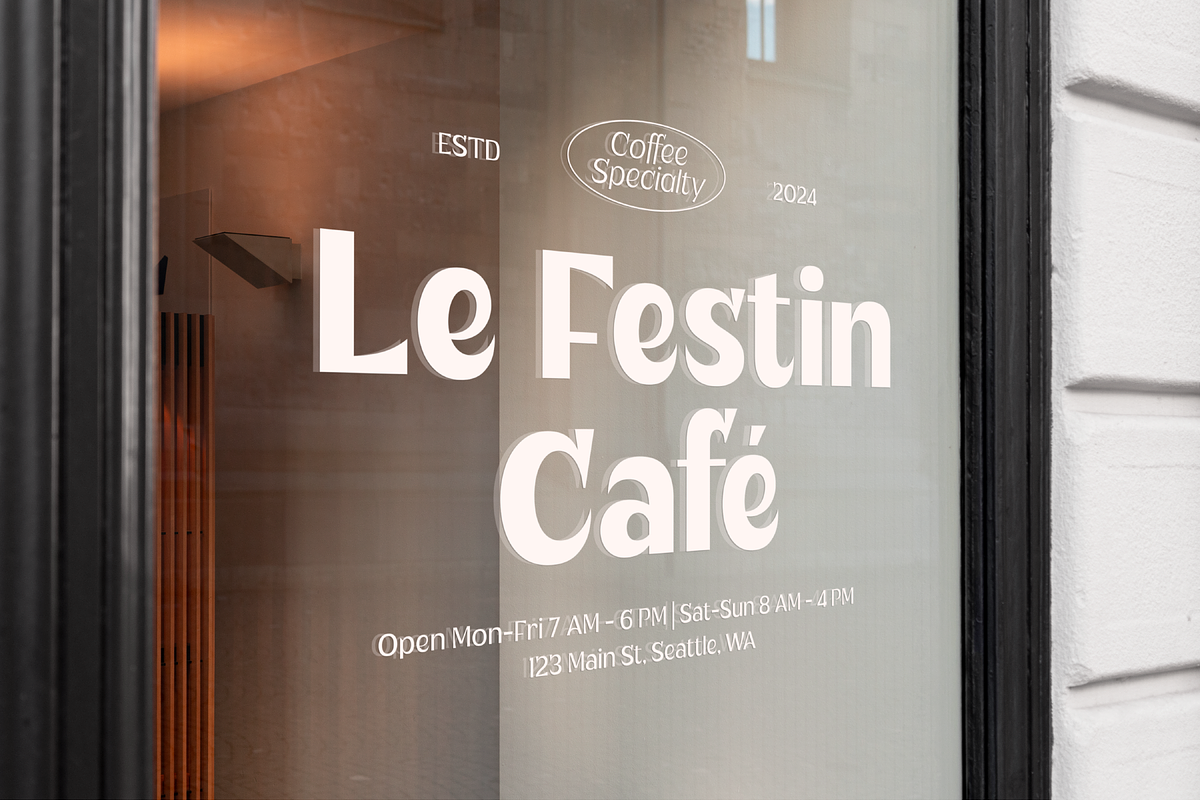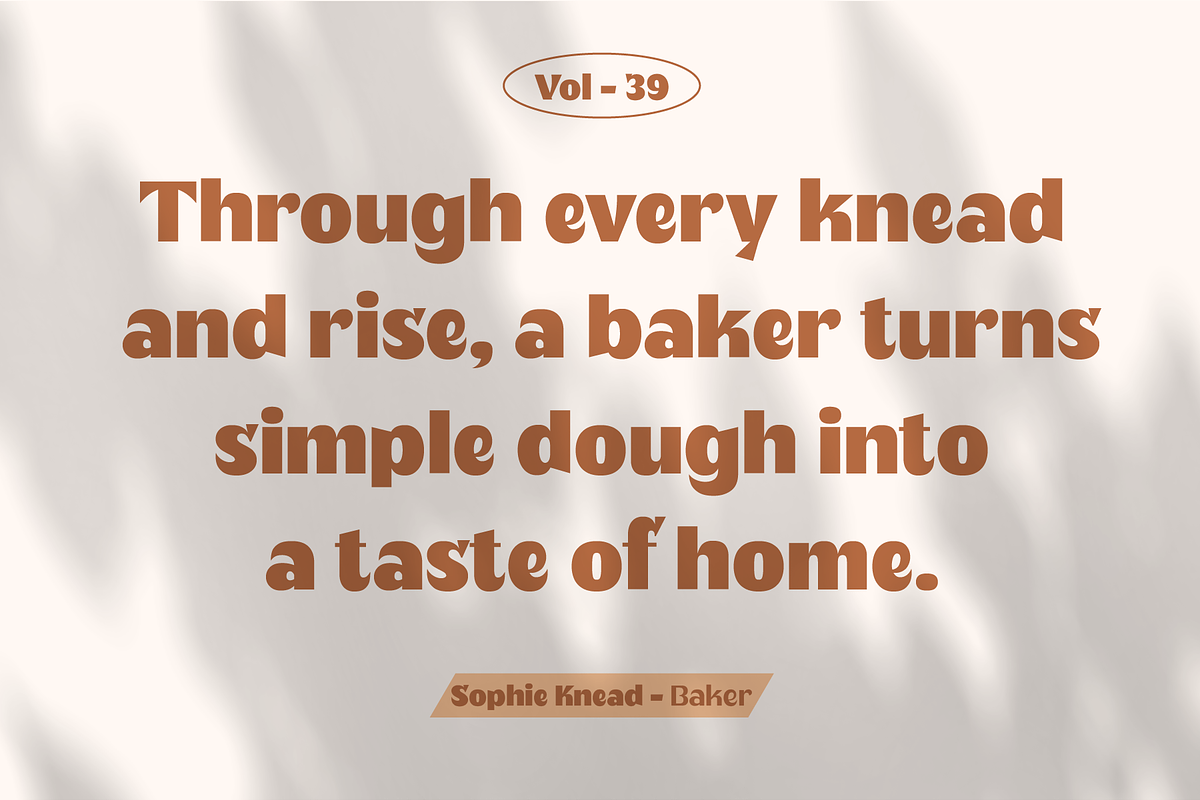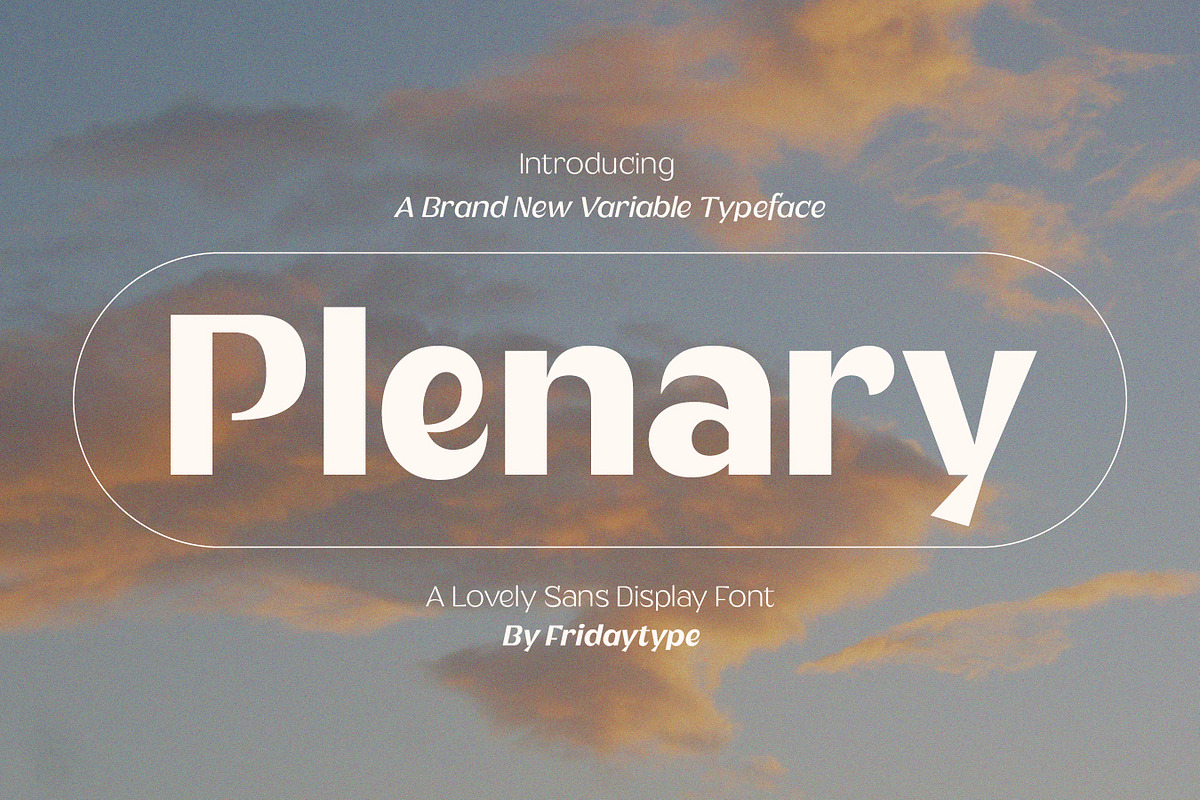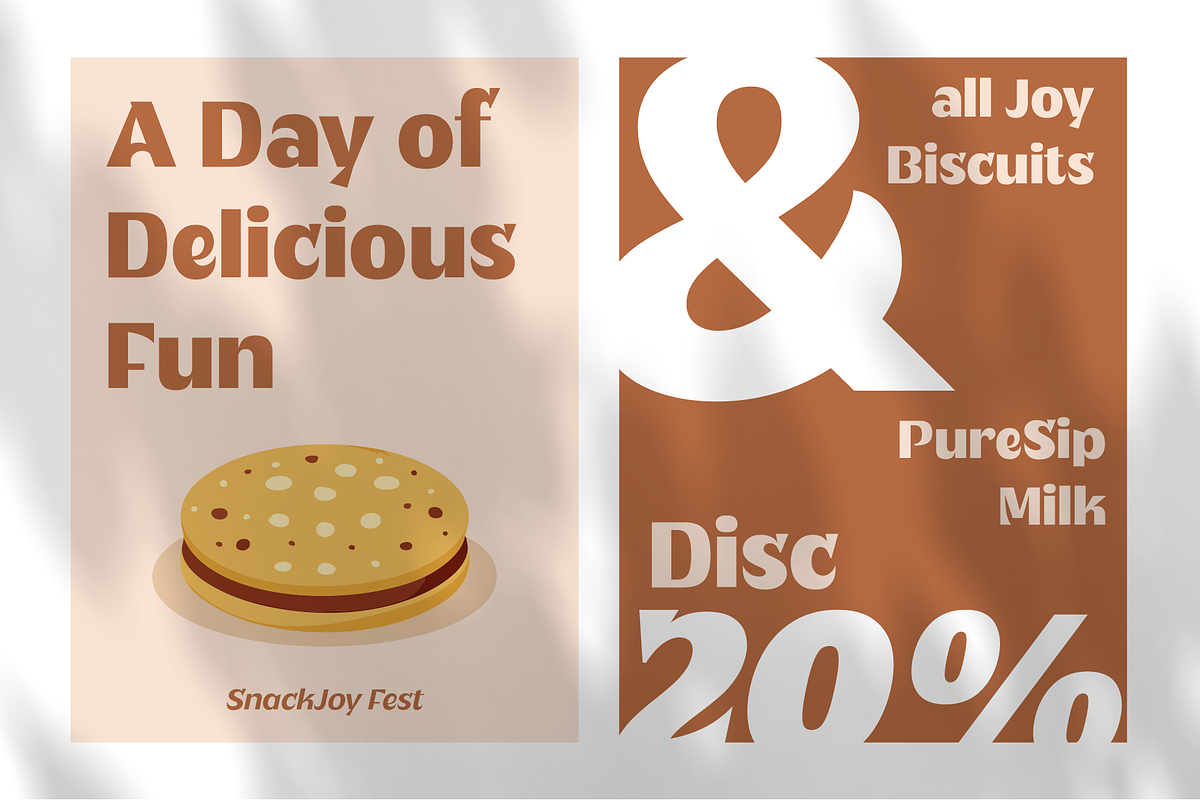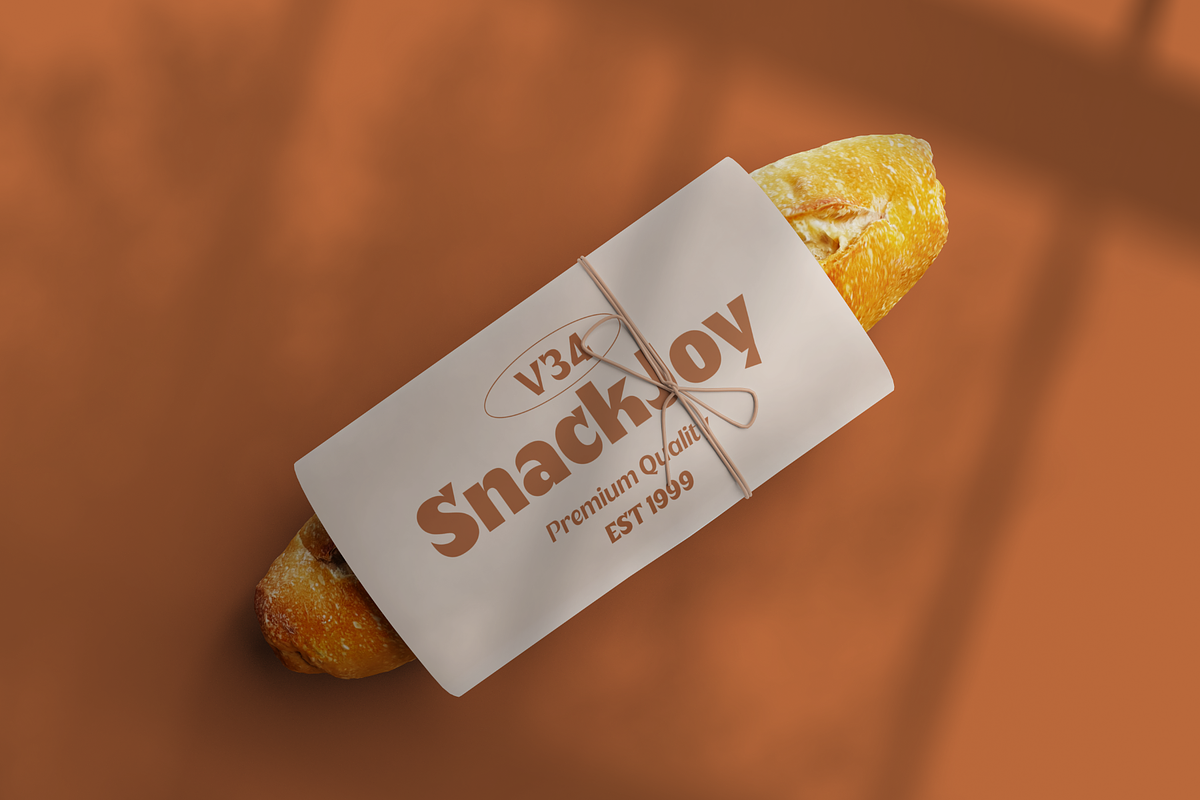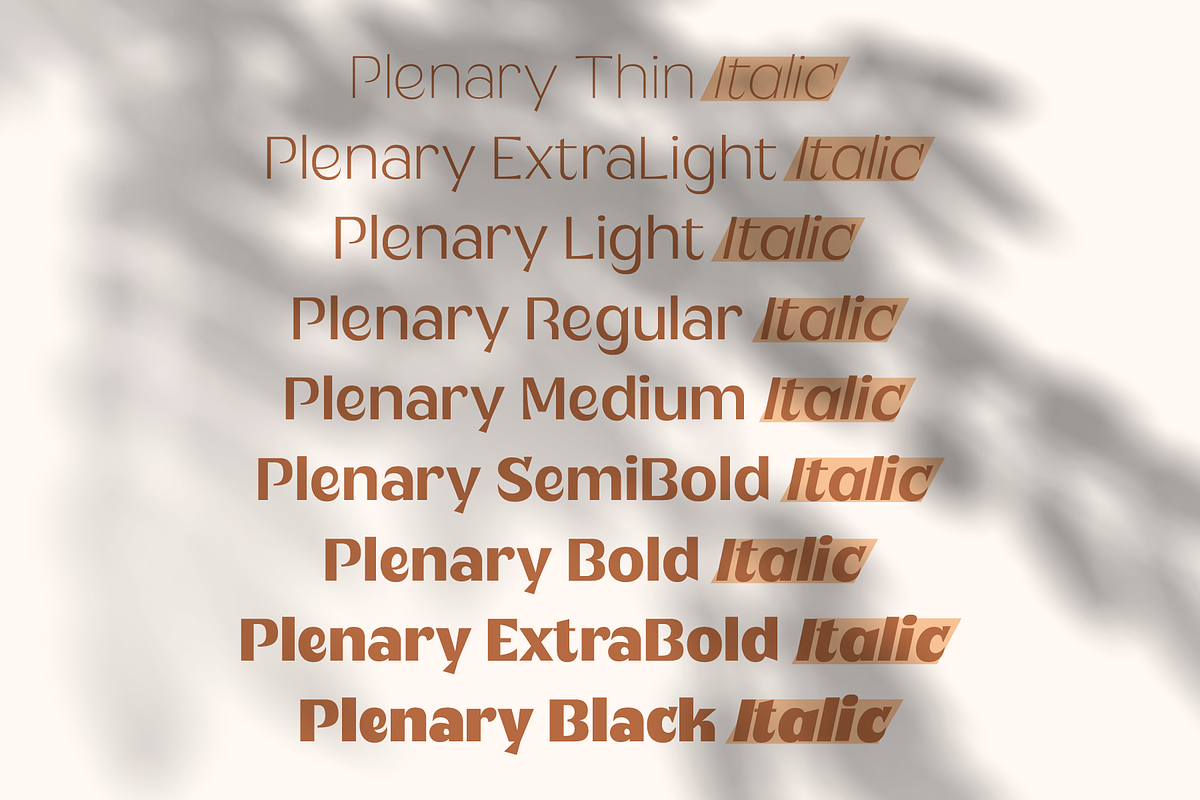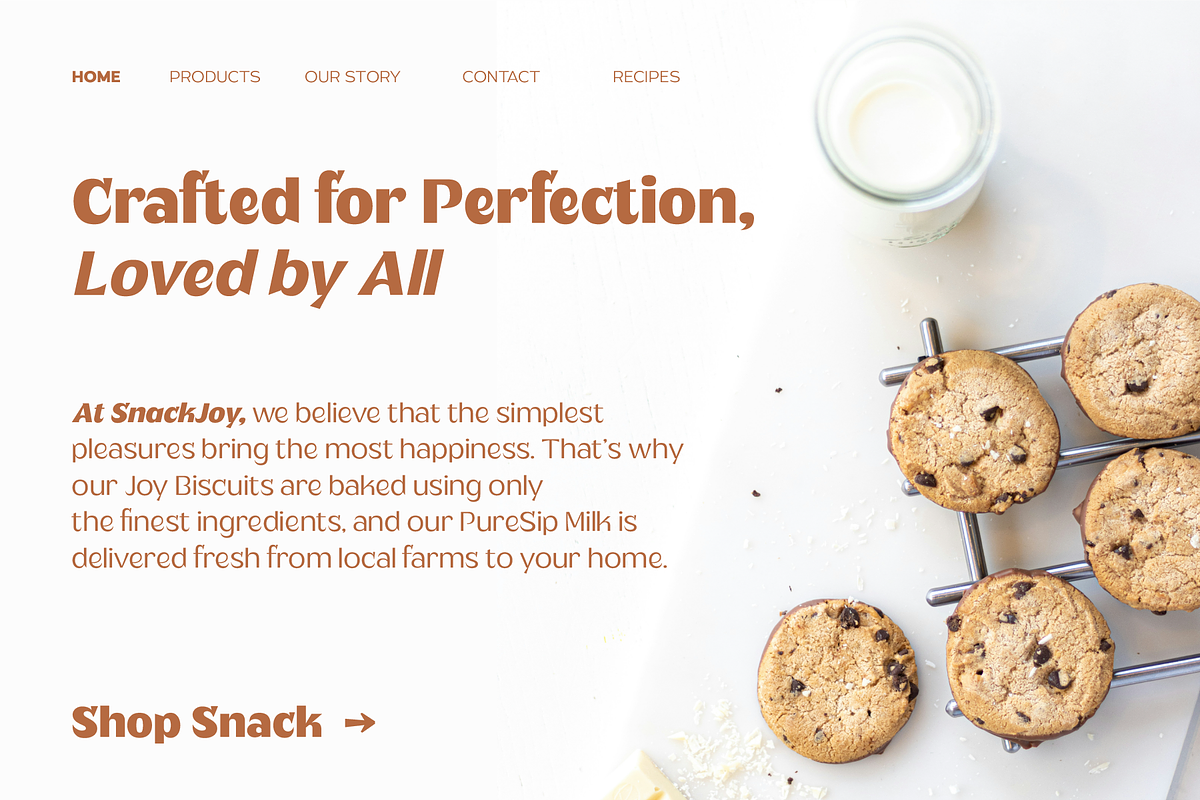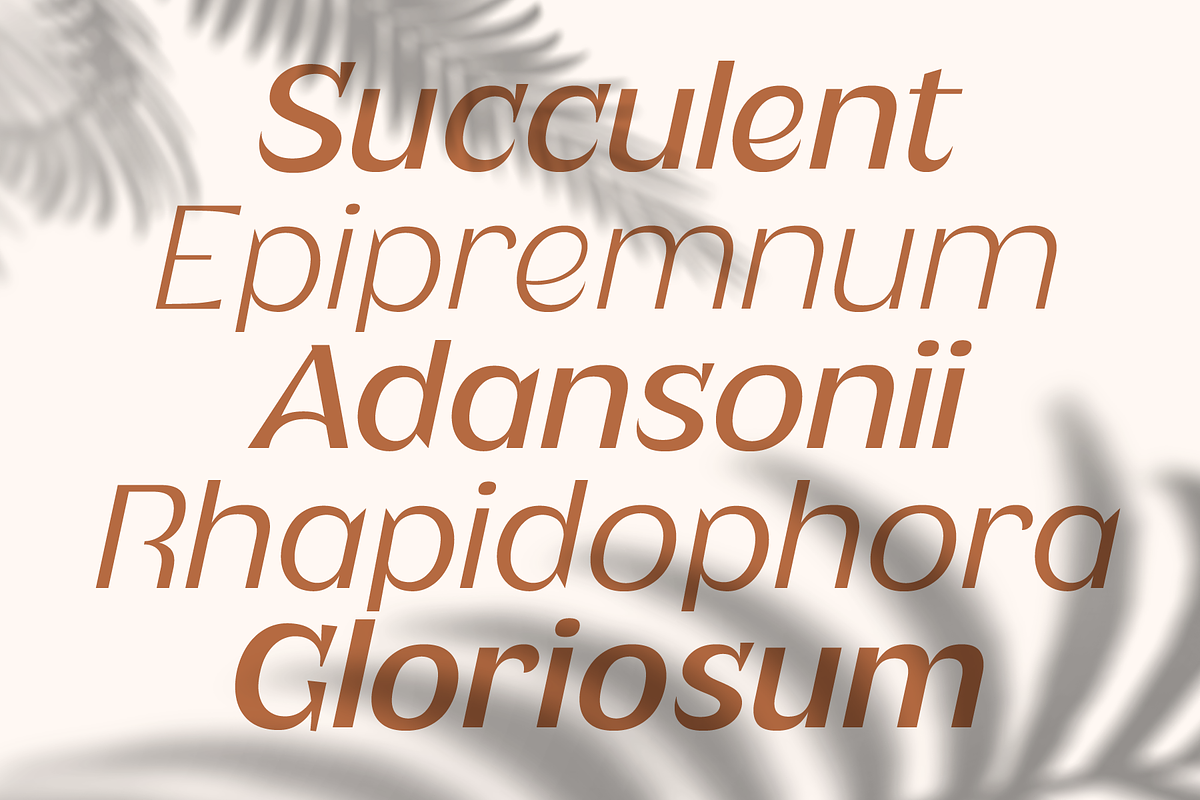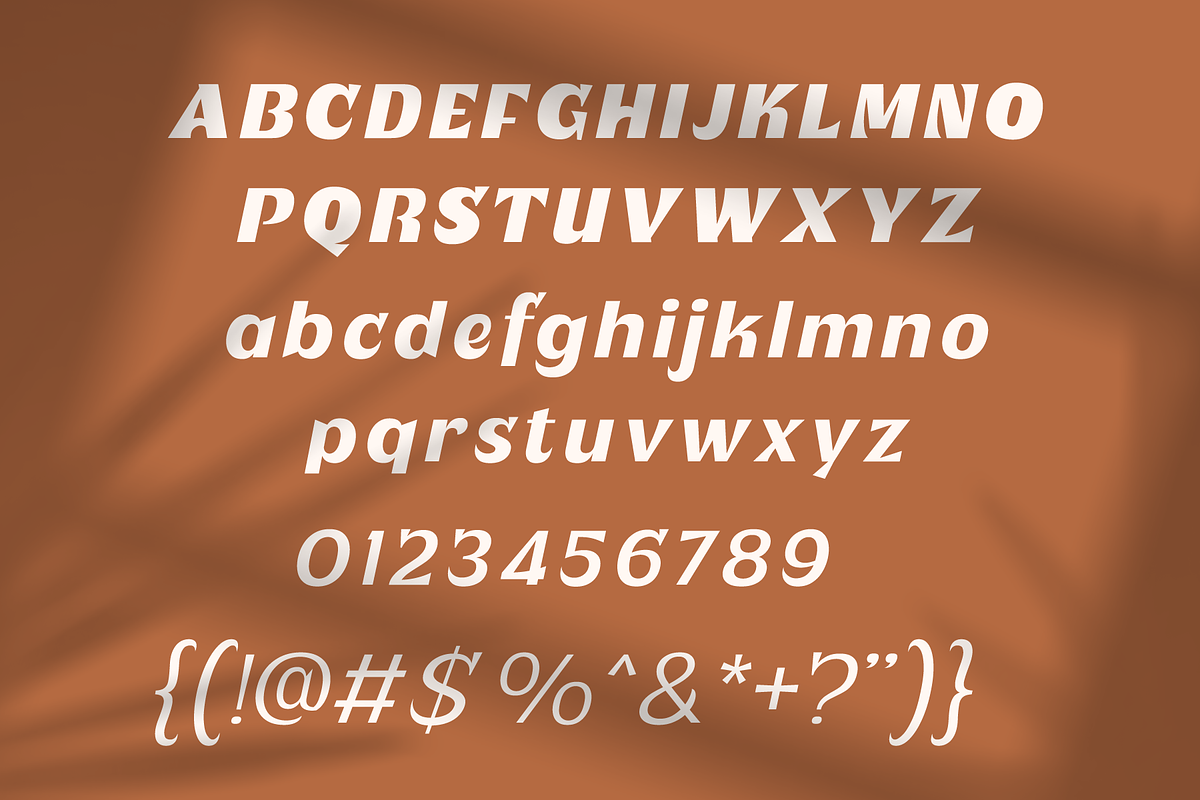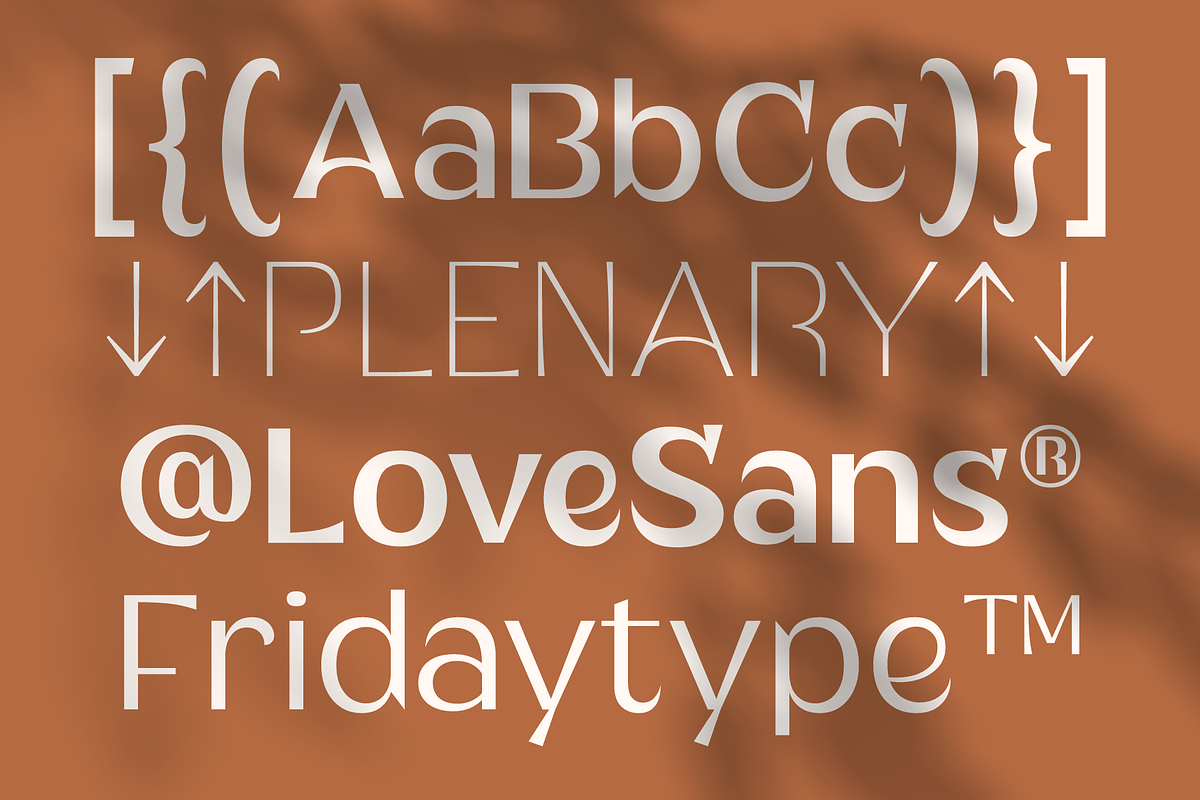
Plenary - A Lovely Sans Display
Plenary is a lovely sans serif typeface that embodies warmth and calm, making it the perfect choice for branding in bakeries, coffee shops, and any setting where a serene, welcoming vibe is key. Its clean lines and soft curves evoke a sense of comfort, ideal for packaging, menus, and logos. With a balance between modern simplicity and a touch of charm, Plenary effortlessly complements artisanal bread, handcrafted coffee, and spaces designed for relaxation.